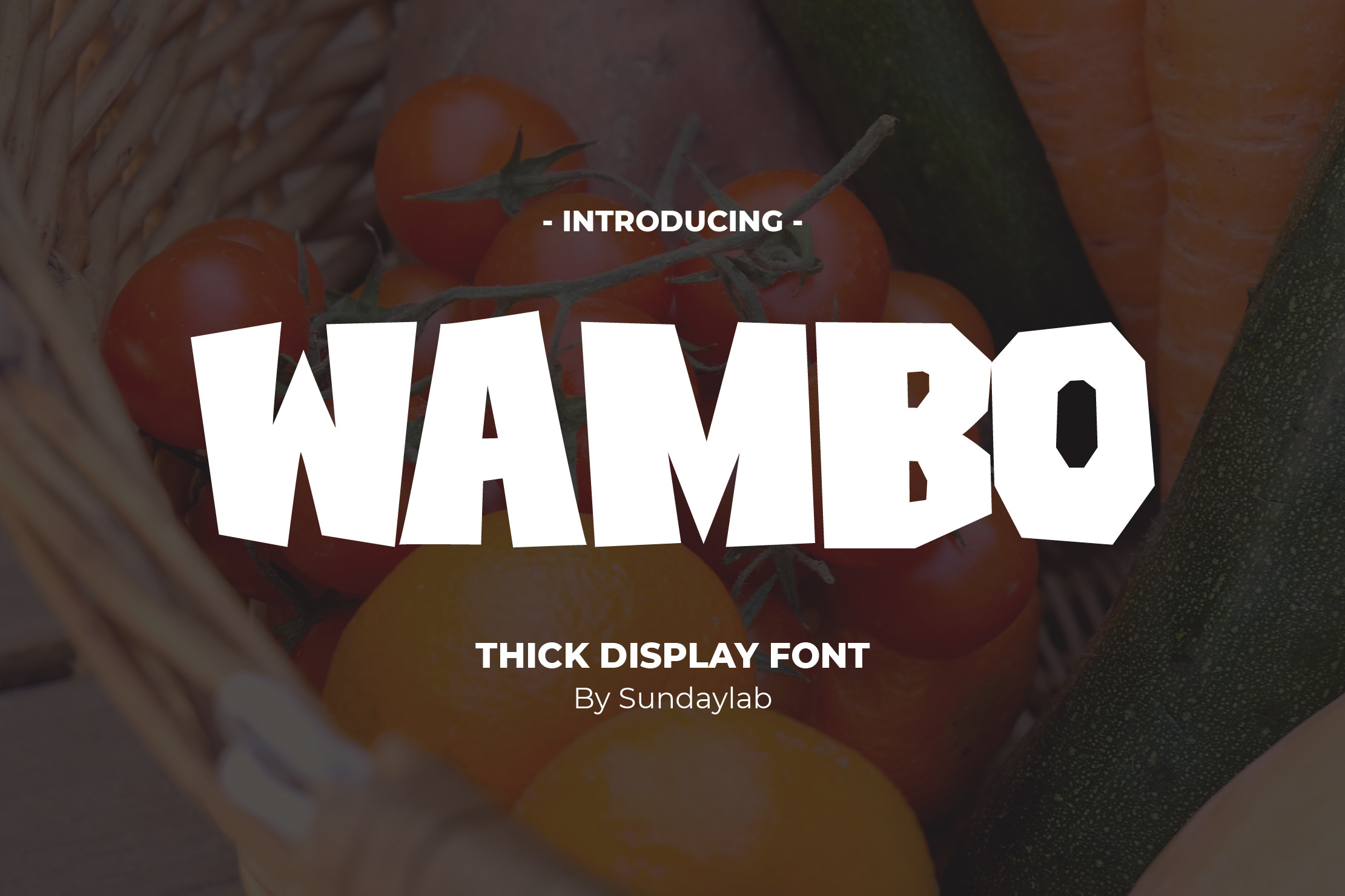
Wambo Thick Display Font
Introducing
Wambo Thick Display Font
Wambo Thick Display Font is a display font that can help show a message in the design you make. It is suitable for labels, stickers and other promotional media.